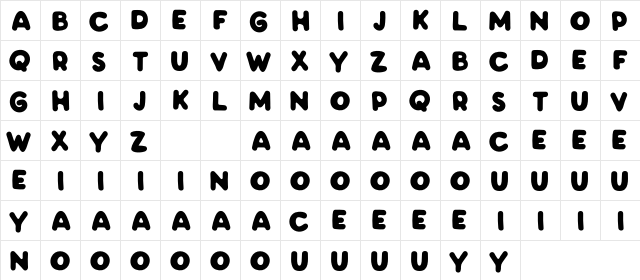
PHATKIDfree Regular
| Foundry | KRISTINA KLAFFKE |
| Designer | KRISTINA KLAFFKE |
Design Context for PHATKIDfree Typeface
PHATKIDfree is a composed and adaptable typeface that performs quietly and consistently across a wide range of design contexts.